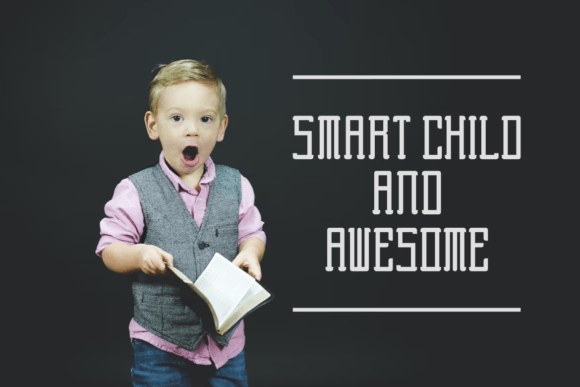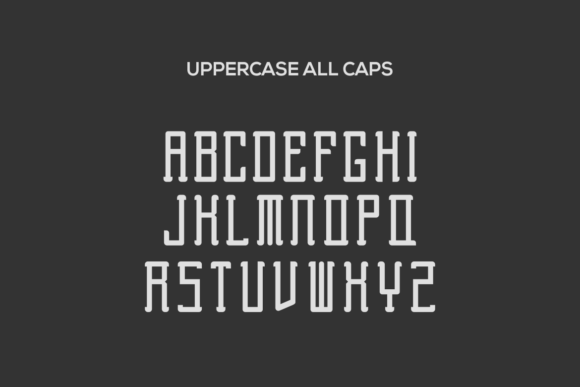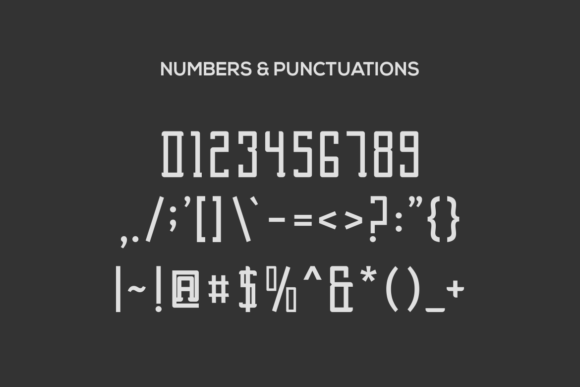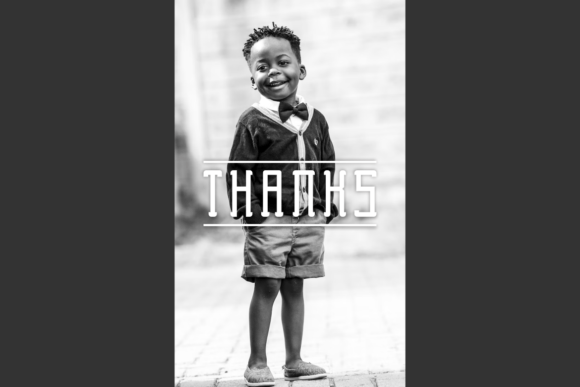
Creamchild Font: Elevate Your Designs with a Cool and Modern Serif
Are you tired of using the same old fonts in your designs? Look no further than the Creamchild Font, a cool and modern serif font that’s perfect for designers and crafters looking to add a unique touch to their work. With its natural and unique style, Creamchild is incredibly versatile and can be used in a wide range of designs, from elegant and sophisticated to playful and whimsical.
The Characteristics of Creamchild Font
Creamchild Font is a serif font, which means it features small lines or flourishes at the ends of the letters. This gives it a classic and timeless feel that’s perfect for designs that require a touch of elegance. However, Creamchild is far from traditional. Its modern take on the serif font features clean lines, subtle curves, and a unique style that’s both eye-catching and sophisticated.
What Makes Creamchild Font So Versatile?
The versatility of Creamchild Font is one of its standout features. Its natural and unique style makes it incredibly fitting for a large pool of designs, from:
- Branding and logos: Creamchild Font is perfect for creating unique and memorable logos that will help your brand stand out from the competition.
- Packaging and labels: Add a touch of elegance to your product packaging with Creamchild Font, and make your labels stand out on store shelves.
- Web design and development: Use Creamchild Font to create stunning website headers, titles, and other typography that will elevate your website’s design and user experience.
- Social media graphics and posts: Make your social media graphics and posts stand out with Creamchild Font, and add a touch of sophistication to your online presence.
- Stationery and invitations: Create beautiful and elegant stationery, invitations, and greeting cards with Creamchild Font.
Why Choose Creamchild Font?
So why choose Creamchild Font over other fonts? Here are just a few reasons:
- Unique style: Creamchild Font has a unique and natural style that’s unlike any other font out there.
- Highly legible: Despite its unique style, Creamchild Font is highly legible, even at small sizes.
Tips and Tricks for Using Creamchild Font
Here are a few tips and tricks for getting the most out of Creamchild Font:
- Use it sparingly: While Creamchild Font is incredibly versatile, it’s best to use it sparingly to avoid overwhelming your design.
- Pair it with other fonts: Experiment with pairing Creamchild Font with other fonts to create a unique and eye-catching look.
- Adjust the font size: Adjust the font size to create visual interest and hierarchy in your design.